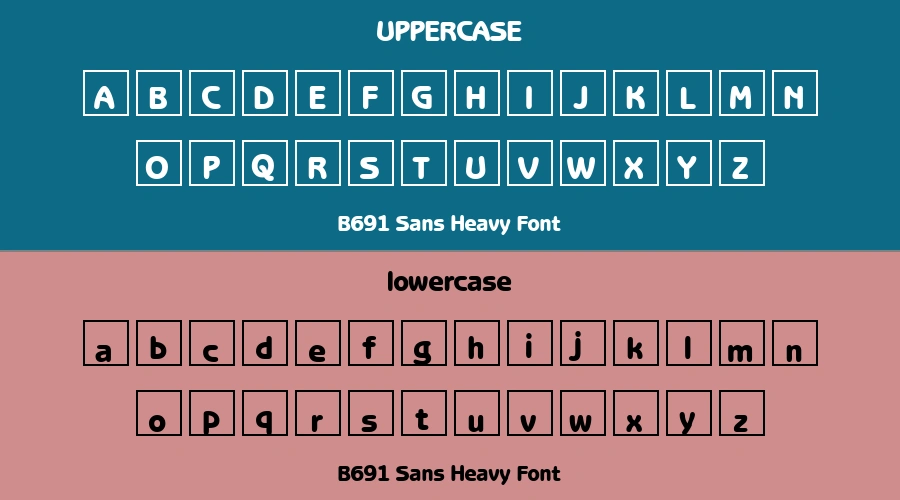
About B691 Sans Heavy Font
When typographic excellence matters most, B691 Sans Heavy Font delivers through its thoughtful blend of fluid connections and visual appeal. Specially crafted for financial statements, it offers the refinement and technical excellence required for sophisticated design work. Every detail serves a purpose.
The character set showcases thoughtful details like calculated proportions alongside functional beginning forms. This proves especially valuable in hero imagery, where kerning accuracy directly influences results. Particular attention was paid to character width and technical authority during development.